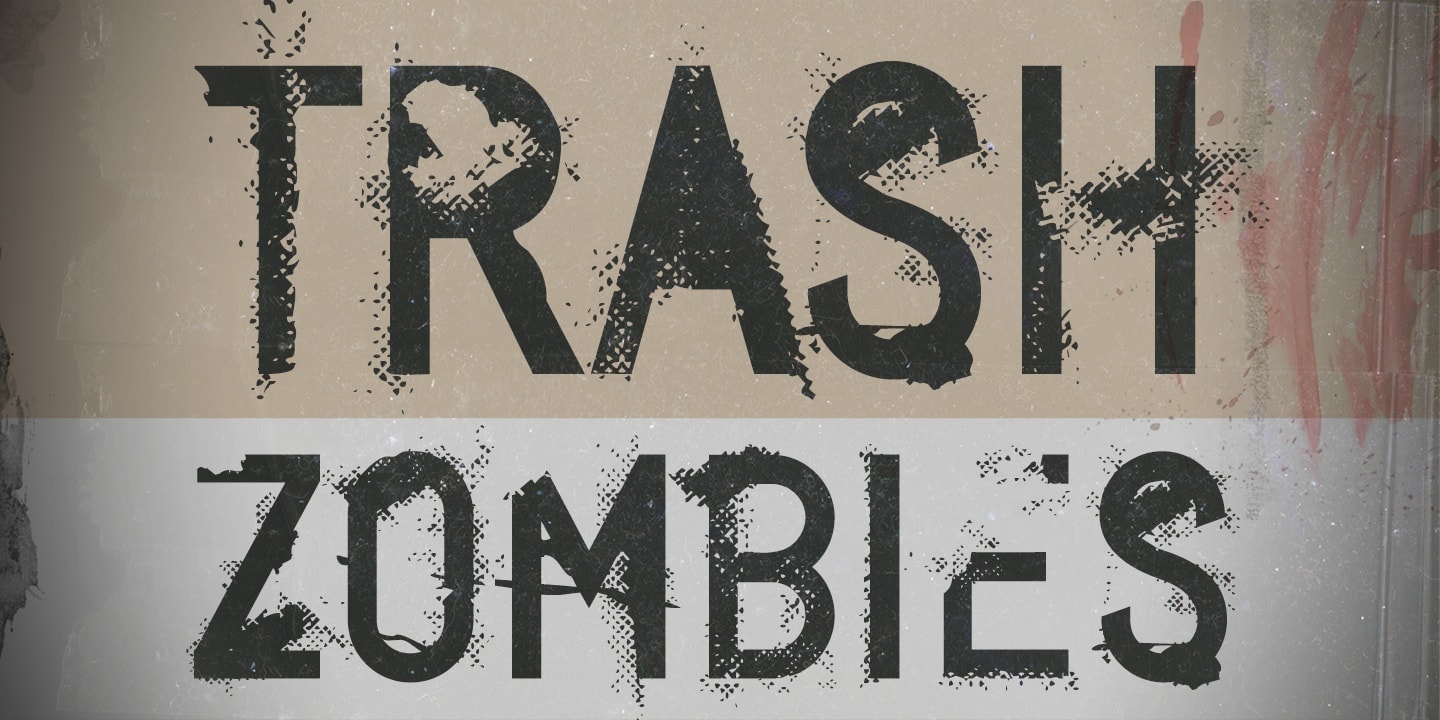
Cape Arconas legendary obsession to create a DIN like font substitution brings us to CA BND, named after the German Intelligence Agency. Thomas Schostok created the typeface for the new Corporate Image of the Intelligence Agency. Well, the presentation wasn’t very successful because there wasn’t any contact person available – everything and everyone is just TOP SECRET. CA BND has got a dangerous functionalism. It’s unemotional but if you look at the details you find something emotional that you will learn to love. It’s coming in two styles with an alternate letterset and a distressed style.